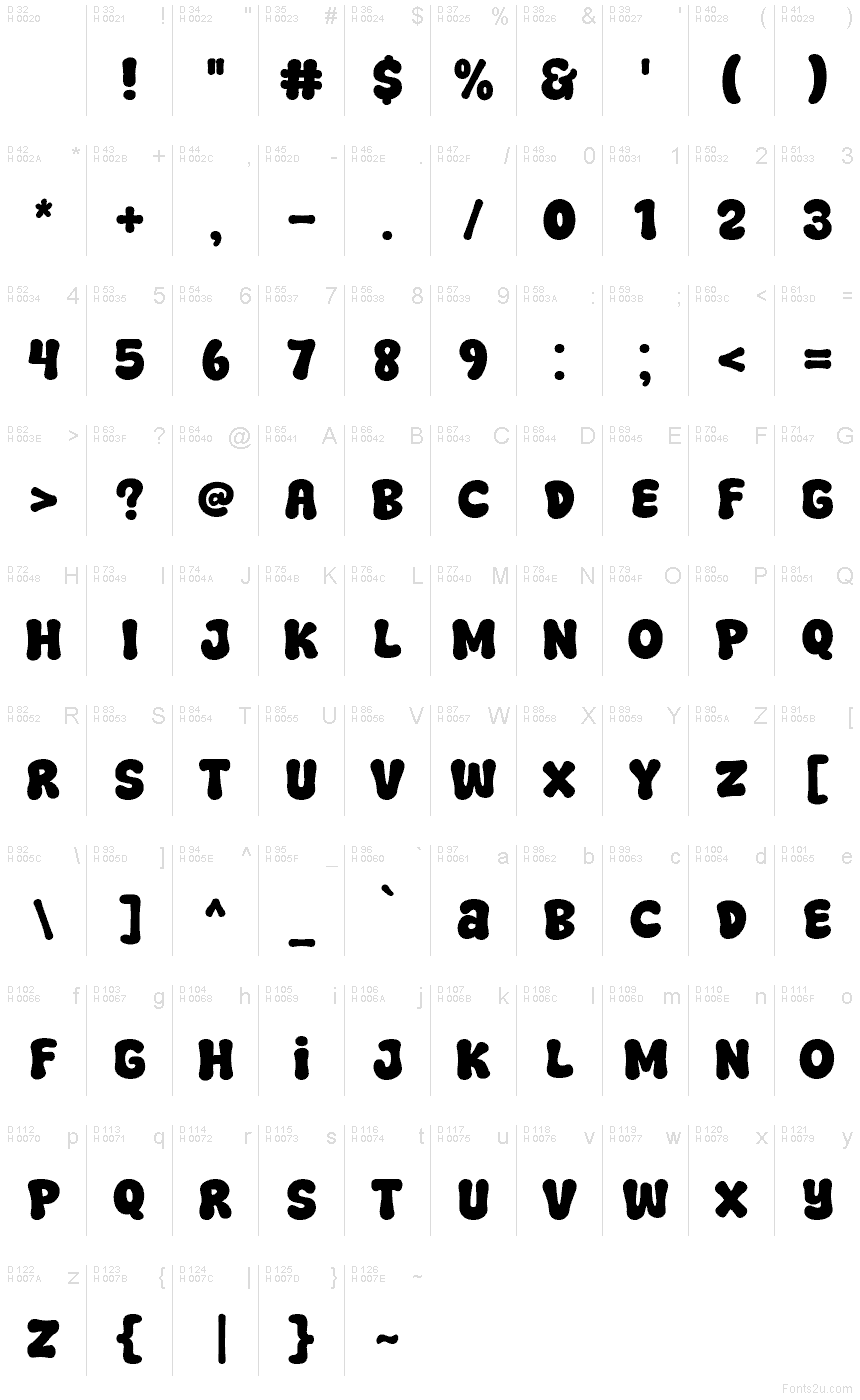
Super Vanilla
Super Vanilla font by fsuarez913 is a bold cartoon display font that adds a touch of whimsy to any design. With its chunky and organic aesthetic, this cheerful retro-inspired typeface perfectly suits whatever project you might have planned. Its wide letterforms make sure the message is delivered in the most engaging way possible.